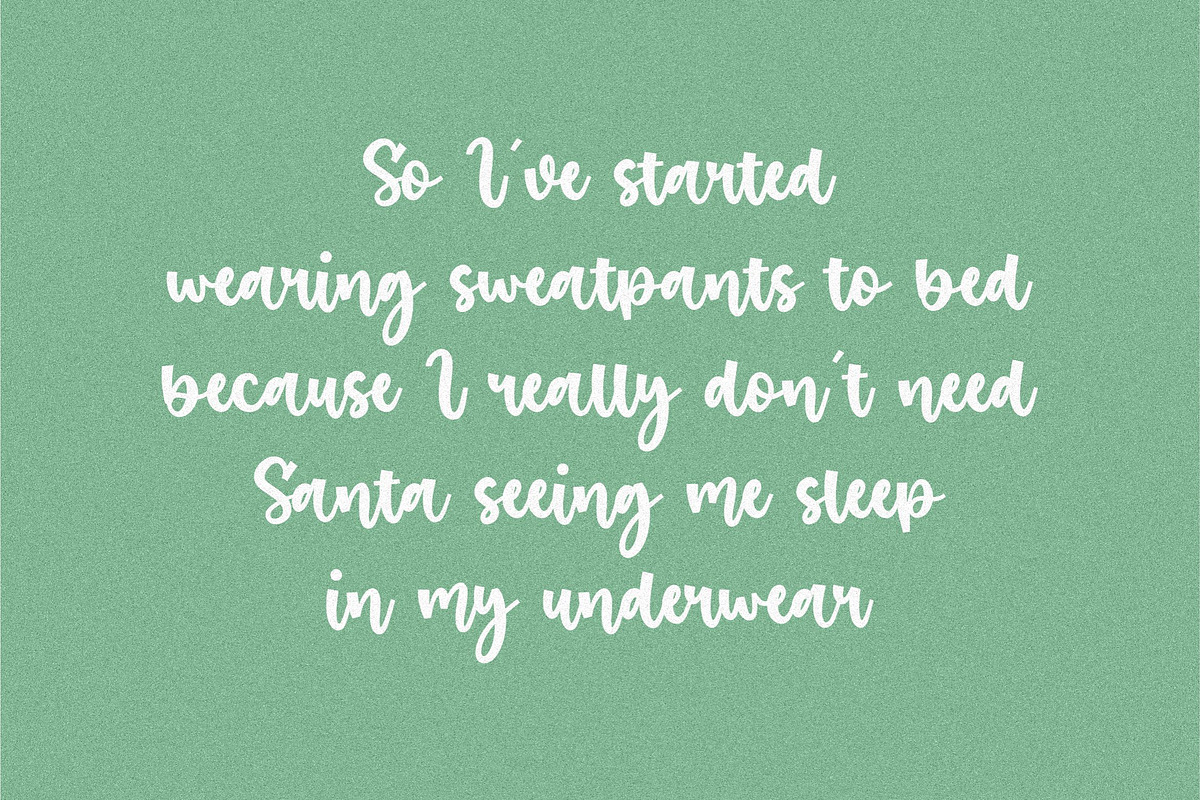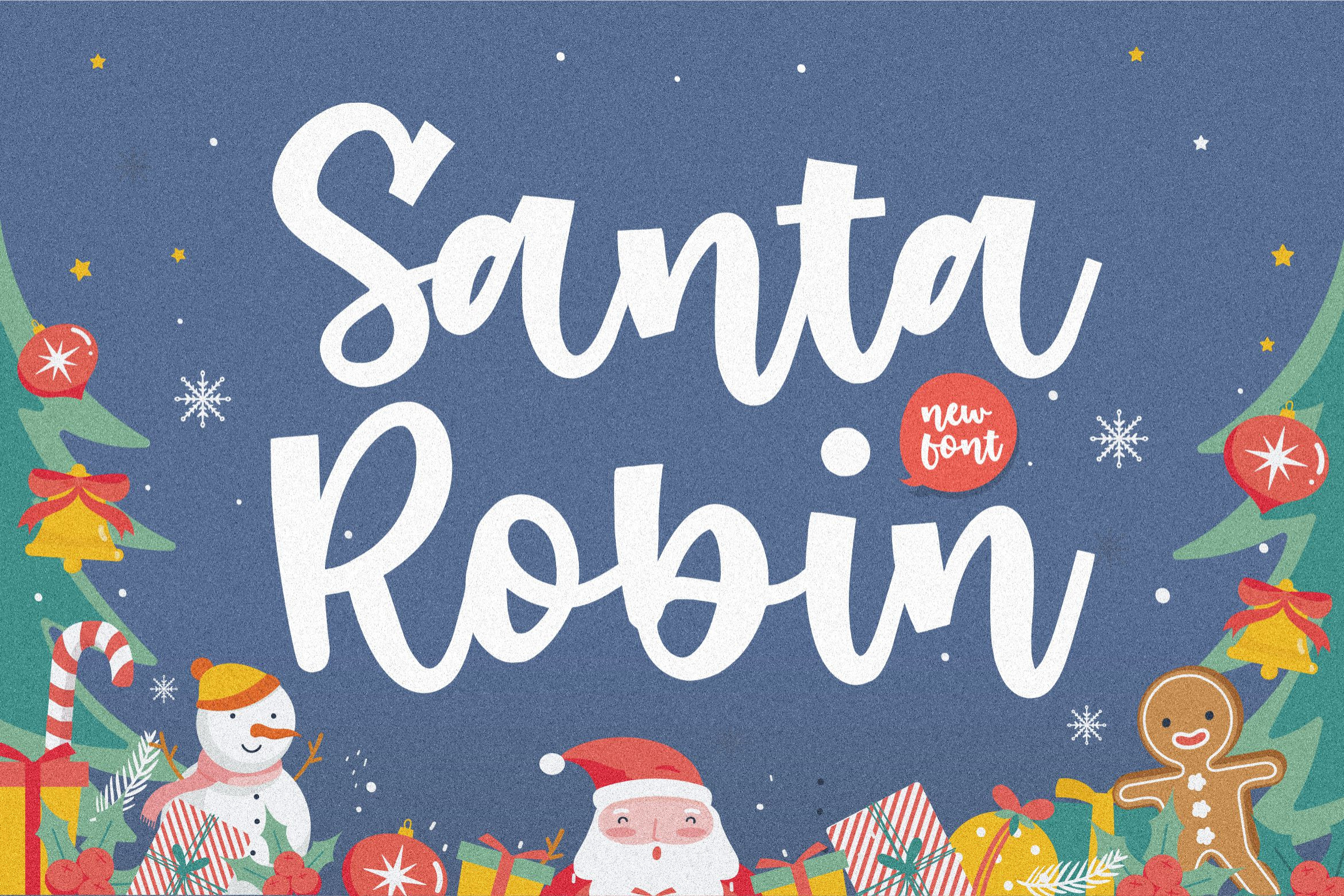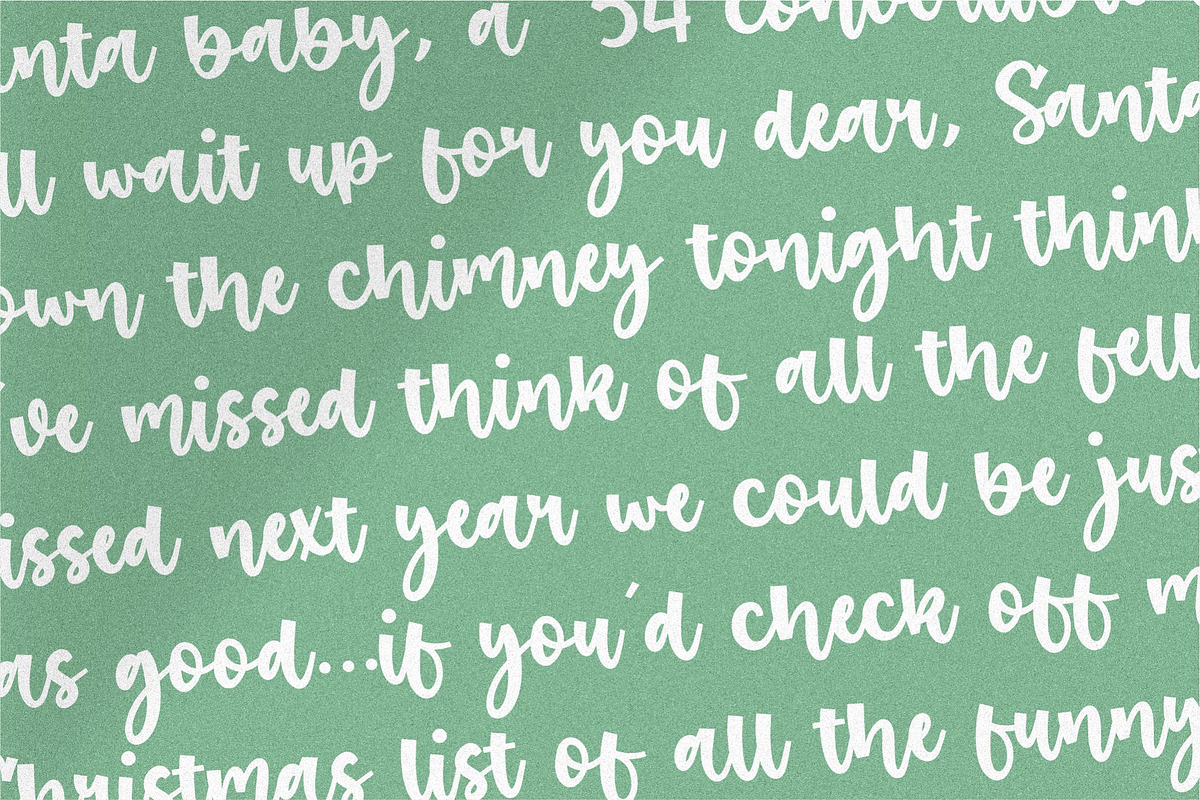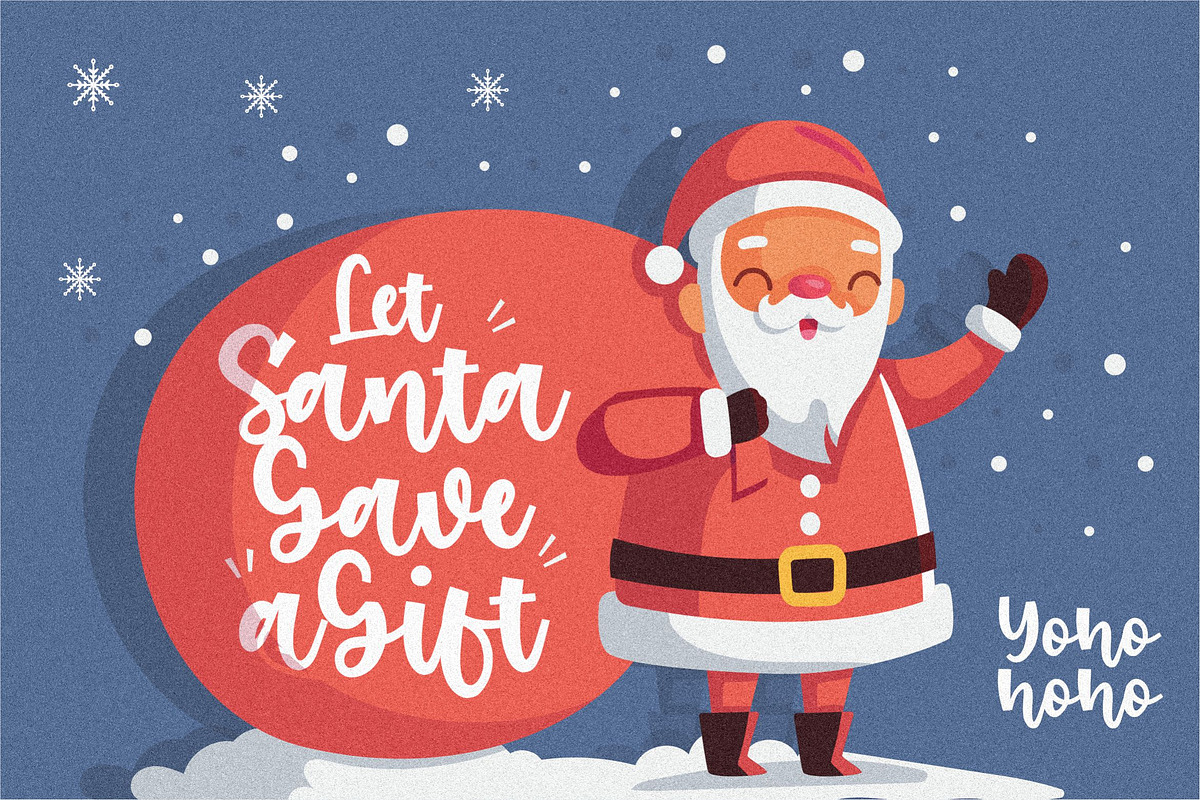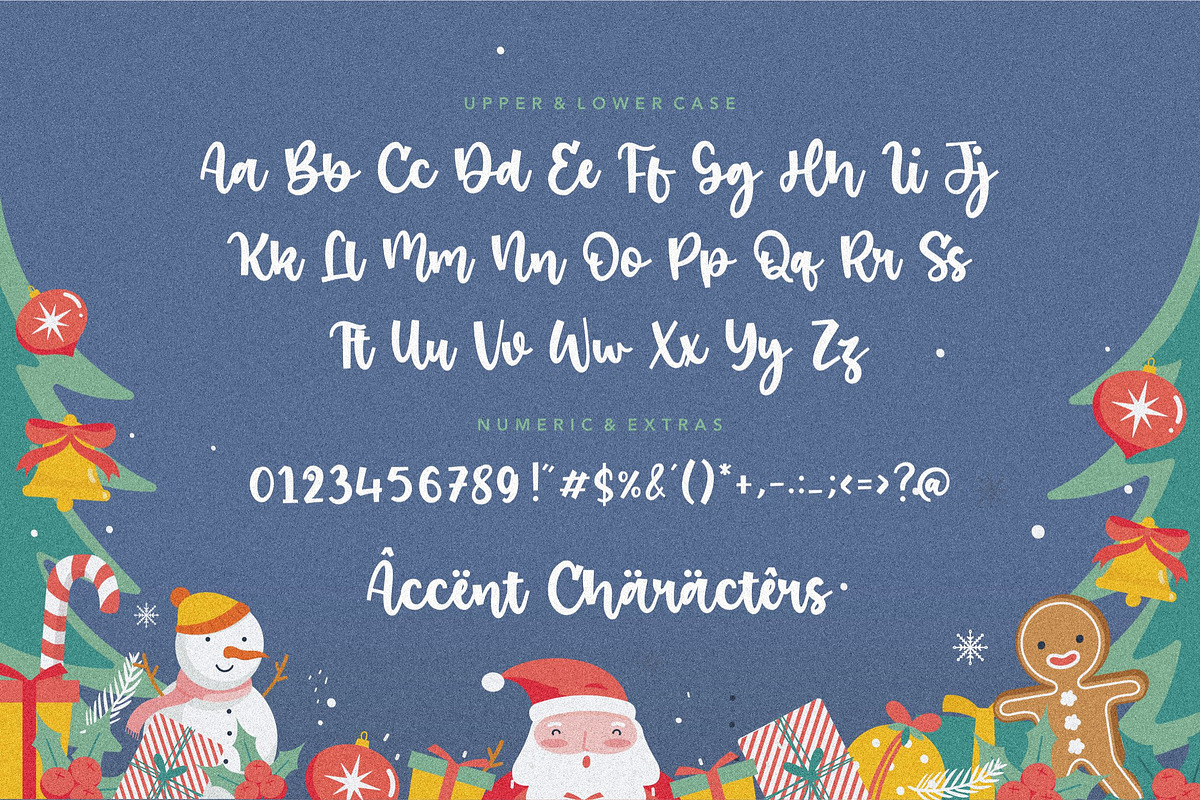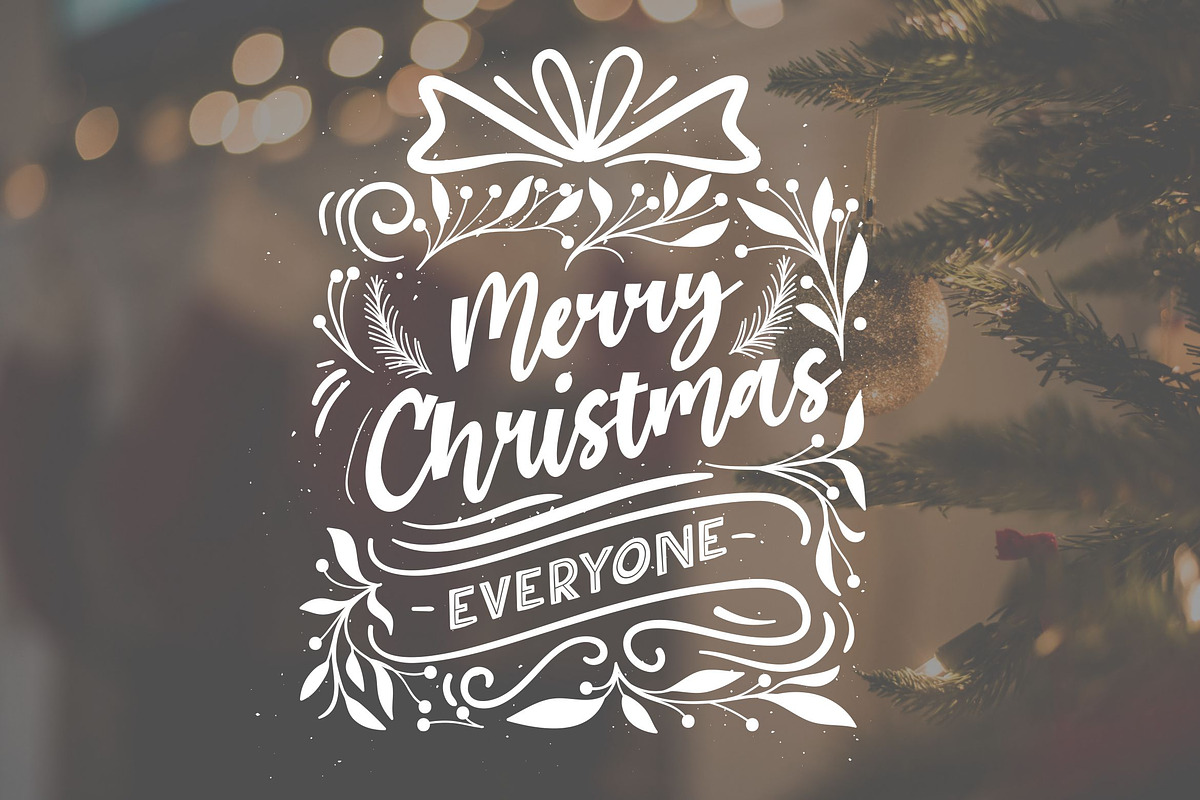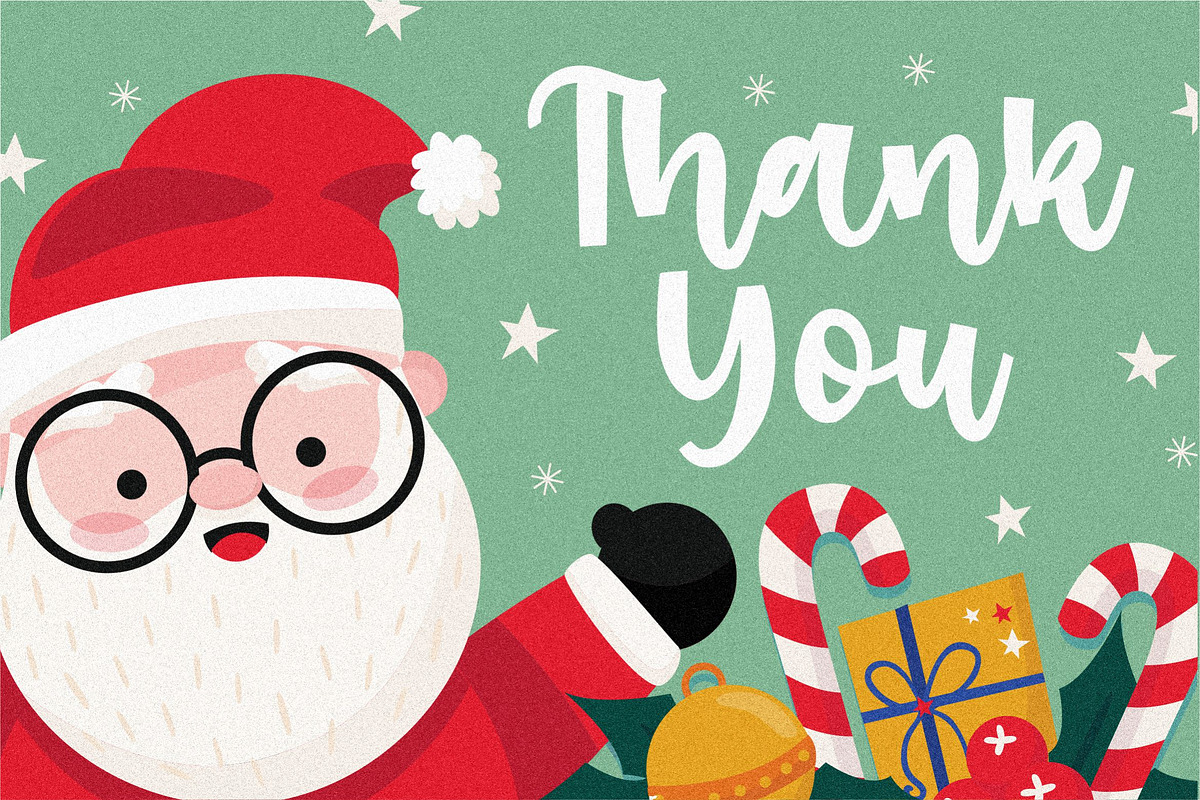
Santa Robin - Handwritten Font
Proudly Present, Santa Robin Font
Santa Robin is a sweet and friendly handwritten font. This playful font will look gorgeous on a variety of design ideas. It will add a joyful and romantic touch to each of your projects!